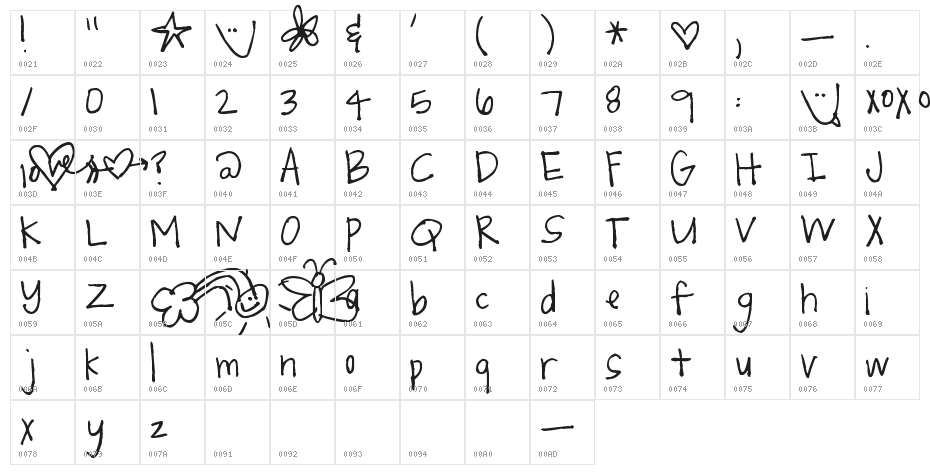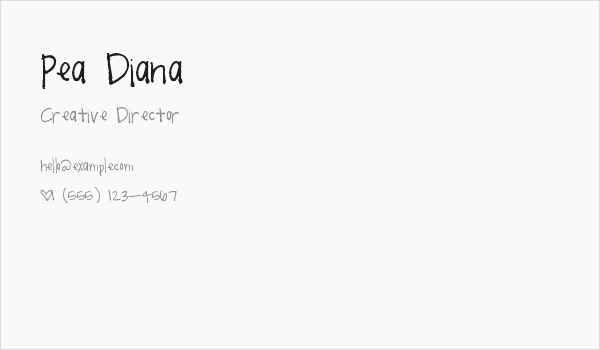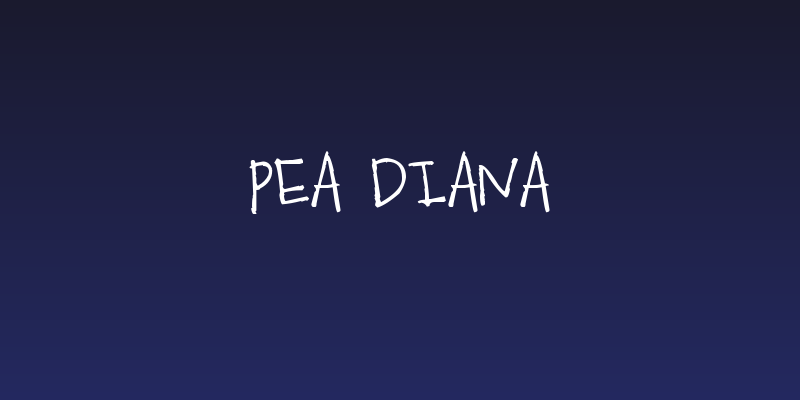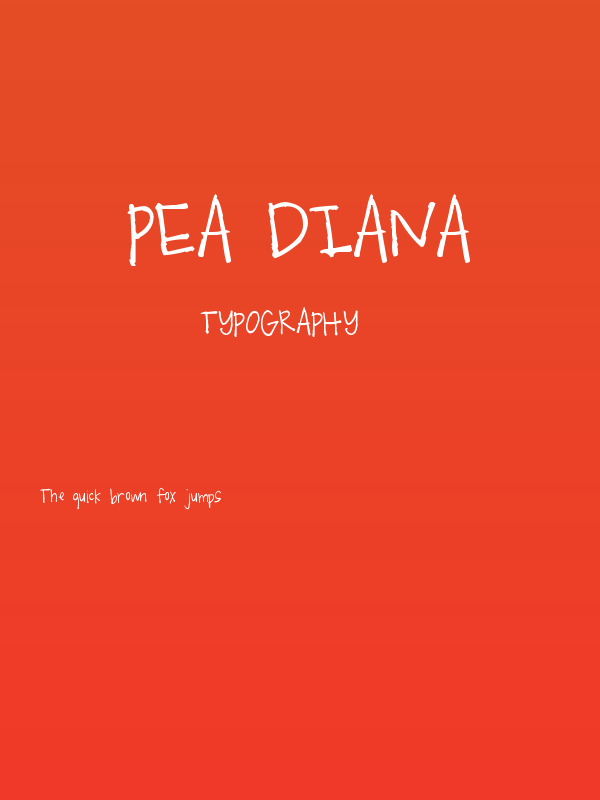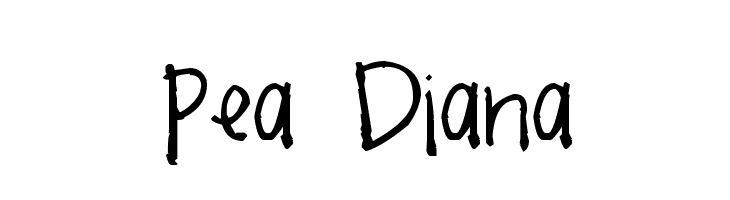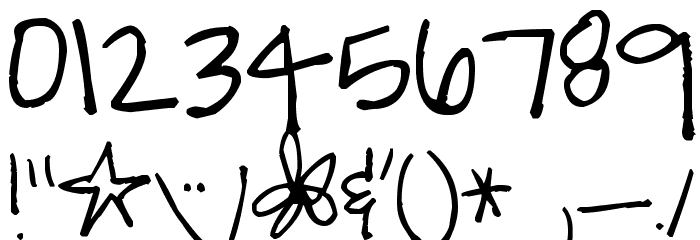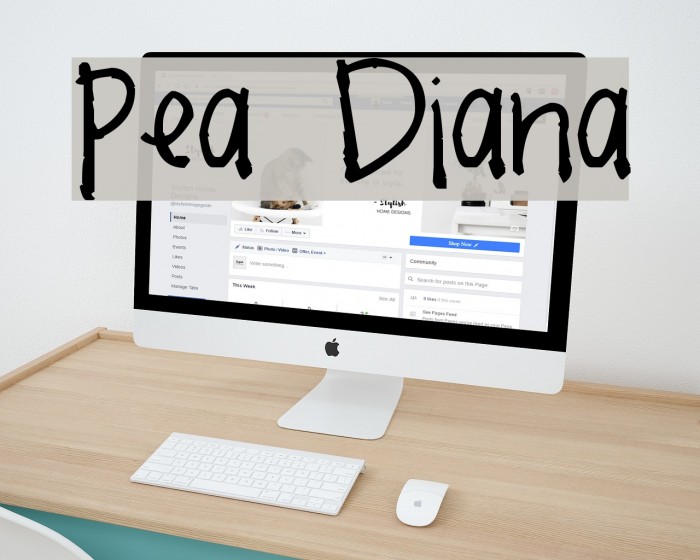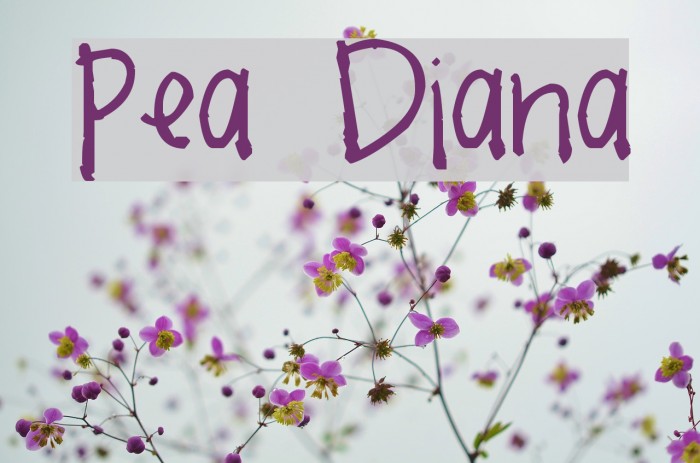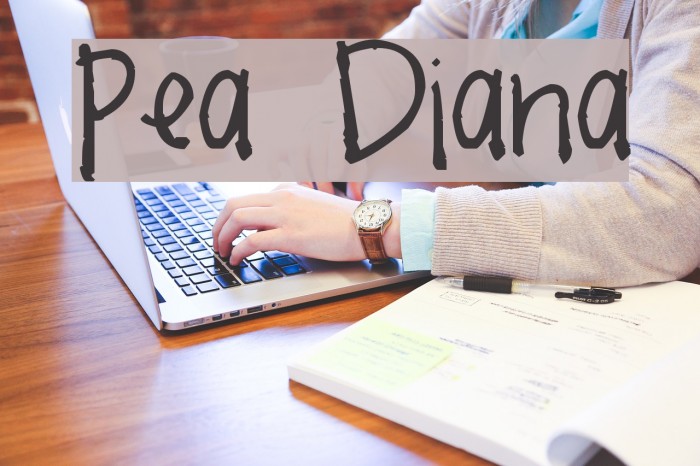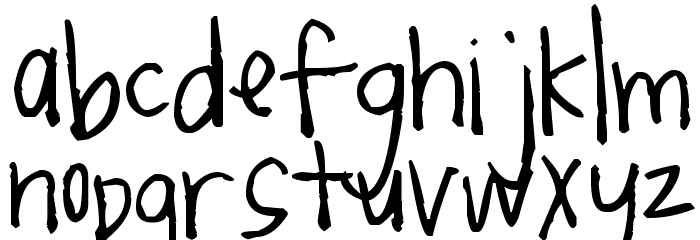
Pea Diana Font
Pea Diana Description
This font exudes a playful and casual handwritten style, characterized by its uneven strokes and organic flow. The letters vary in size and alignment, giving it a dynamic and lively appearance. The uppercase and lowercase letters maintain a consistent style, with rounded edges and a slightly tilted orientation. Numbers and special characters follow the same informal aesthetic, making it suitable for projects that require a personal touch. Its unique charm lies in its imperfect, human-like quality, which adds warmth and approachability to any design.
| Overall Style | Casual, Playful |
| Use Case | Logos, Headlines, Informal Text |
| Proposed Projects | Ideal for personal notes, greeting cards, children's books, and informal branding. |